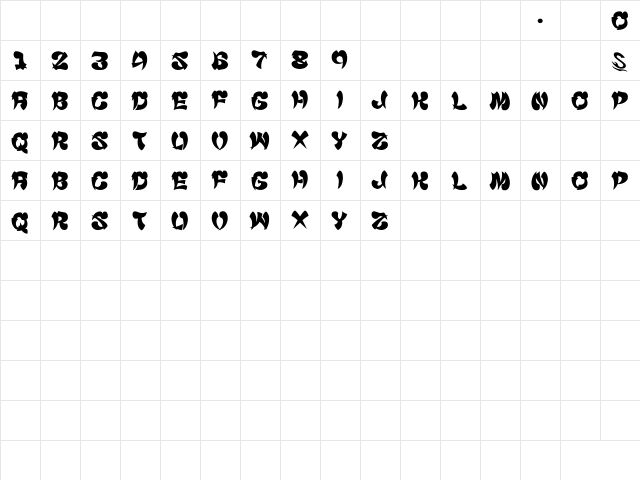
Cyankonabe__G Regular
Design Context for Cyankonabe__G Typeface
Cyankonabe__G is a composed and adaptable typeface that performs quietly and consistently across a wide range of design contexts.